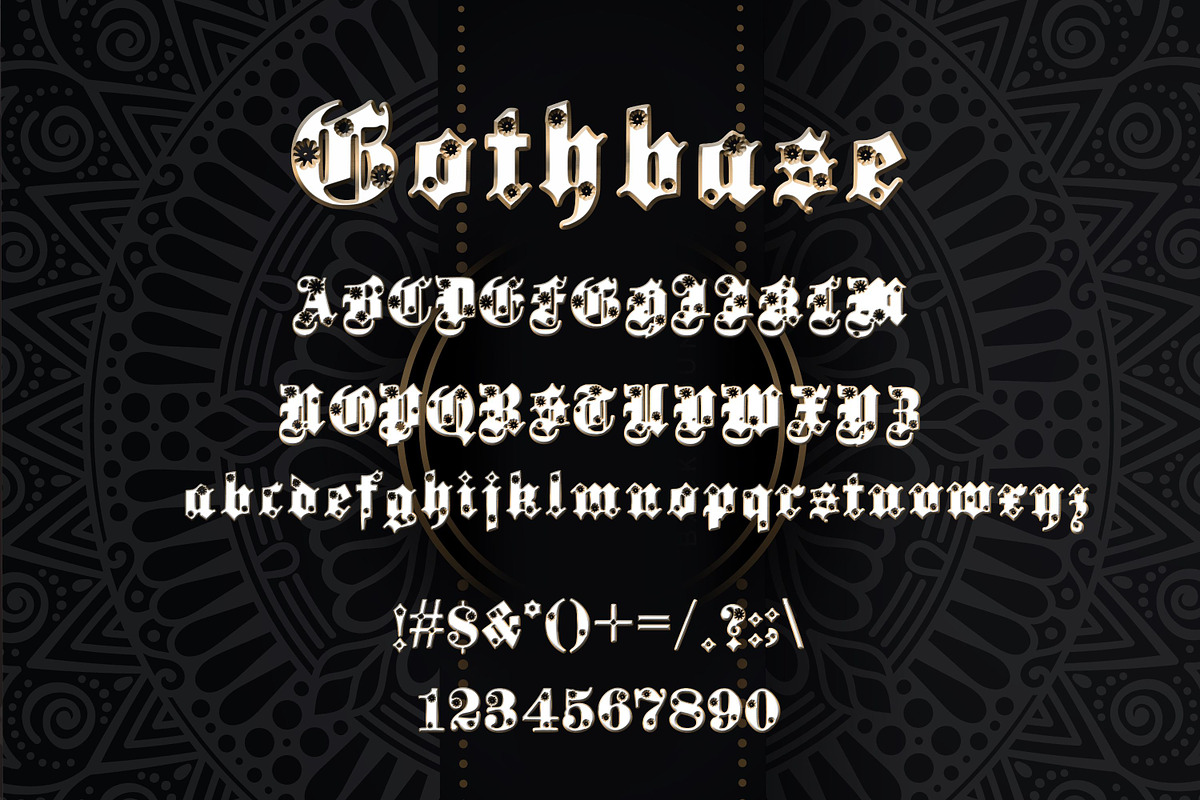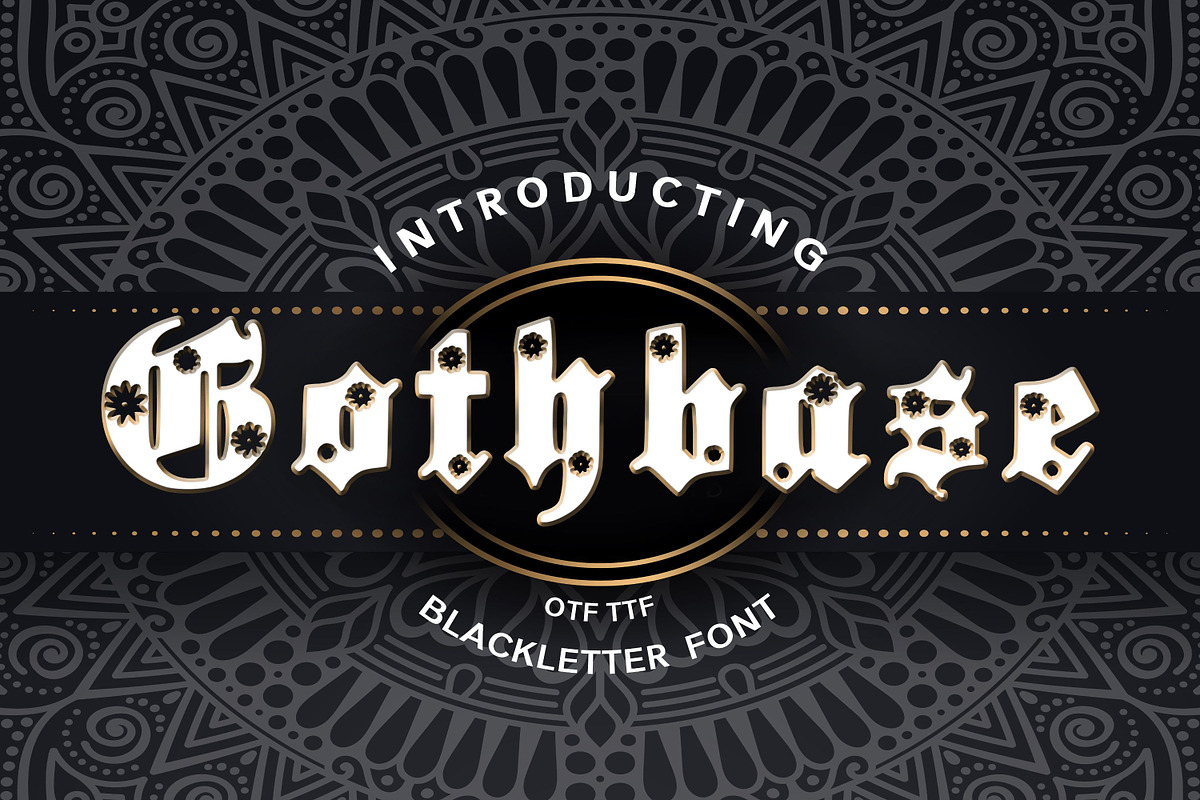
Gothbase Blackletter Font
Gothbase Blackletter Font by DmDesignsStoreArt is a font selected for branding, posters, packaging, typography.
Why Gothbase Blackletter Font is worth a look
Gothbase Blackletter Font by DmDesignsStoreArt fits naturally into Branding, posters, packaging, typography.